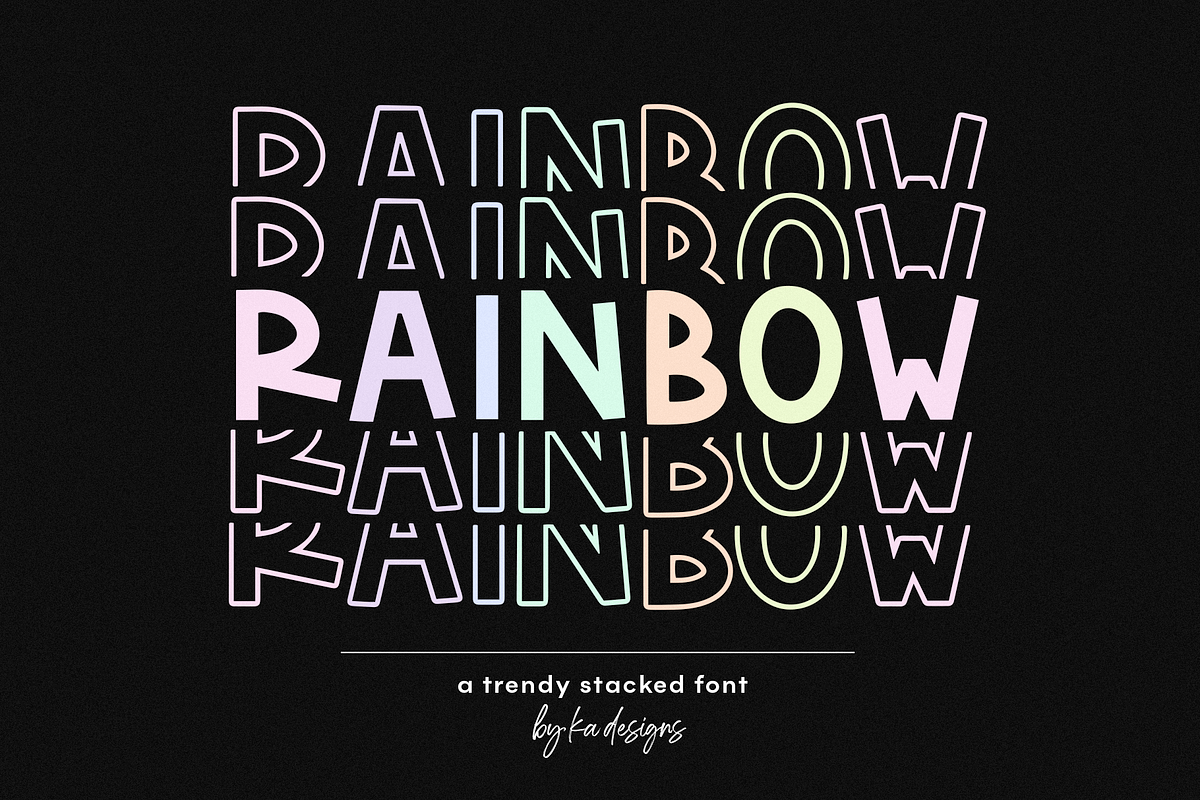
Rainbow – Stacked Font Free Download
Rainbow – Stacked Font Free Download is a bold, colorful, and playful typeface designed to stand out with its layered, stacked letter style. Perfect for children’s designs, party invitations, retro posters, merch, and vibrant social media content, this font brings joyful energy and visual impact to any creative project.
With its chunky shapes and stacked composition, Rainbow – Stacked Font Free Download is ideal for titles, headlines, and branding that needs to feel fun, expressive, and full of personality. It’s especially effective when used in multi-color layouts to emphasize its layered design.